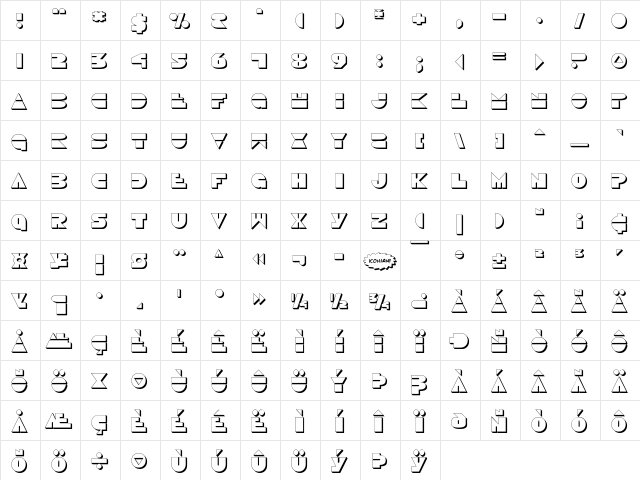
Disco Duck 3D 3D Font Preview
Disco Duck 3D 3D
Disco Duck 3D 3D Font Details
| Style | 3D |
Design Context for Disco Duck 3D Typeface
Disco Duck 3D is a composed and adaptable typeface that performs quietly and consistently across a wide range of design contexts.